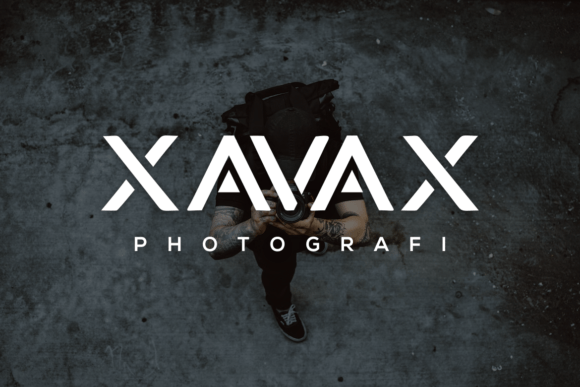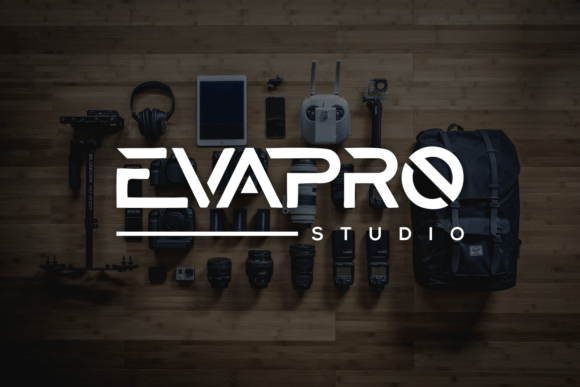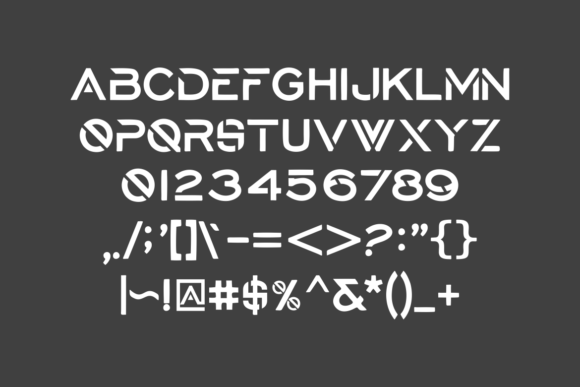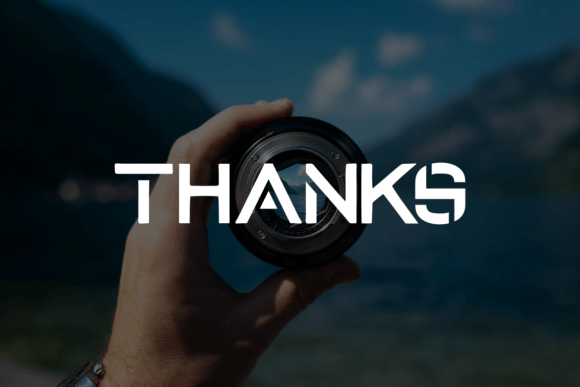
Introduction to Moprid Font
As designers, we’ve all been there – staring at a blank canvas, trying to come up with the perfect idea for a project. The cursor blinks, our minds go blank, and we’re left wondering what to do next. But what if you had the perfect design resource to kickstart your creative project? Enter the Moprid Font, a modern sans serif font that’s as versatile as it is stylish.
With its clean lines and simple shapes, the Moprid Font is the perfect solution for designers looking to add a touch of sophistication to their work. Whether you’re working on a high-quality brochure, a website, or a social media campaign, this font is sure to impress. And the best part? It’s available for free download, complete with a transparent background, making it easy to incorporate into your design.
Key Features of Moprid Font
- High-quality design with a transparent background, perfect for use in creative projects.
- Features a unique, modern design that can add a touch of sophistication to any creative project.
- Includes a range of glyphs and characters, making it a versatile font for use in various design contexts.
- Has a high resolution of 300 DPI, ensuring that it looks crisp and clear in print and digital applications.
- Is available in a range of sizes, from 18 to 72 points, allowing for flexibility in design and layout.
Honest Review: Moprid Font
I recently had the opportunity to work with the Moprid Font in a creative project, and I must say, I was quite impressed. The font offers a high quality, modern design that is perfect for a variety of applications.
One of the standout features of the Moprid Font is its versatility. It comes in a range of weights and styles, making it easy to find the perfect fit for your design needs. ✨ The font also includes a transparent background, which is a huge plus for designers who want to achieve a seamless look.
Here are some of the key features of the Moprid Font:
- High quality, modern design
- Range of weights and styles
However, there are a few limitations to the Moprid Font. ⚠️ The font may not be suitable for very small text sizes, and it may not be as customizable as some other fonts on the market. Additionally, the font is only available for personal use, which may be a limitation for commercial designers.
Overall, I was very impressed with the Moprid Font. It’s a great addition to any designer’s toolkit, and it’s perfect for a variety of creative projects. With its high quality design and transparent background, it’s a must-have for any designer looking for a reliable and versatile font.
Tips for Getting the Most Out of Moprid Font
To get the most out of Moprid Font, experiment with different font sizes, colors, and styles to create visually appealing designs. Use the transparent background feature to create unique and creative designs. Also, combine Moprid Font with other high-quality design resources to take your creative project to the next level.
Moprid Font is suitable for various creative projects, including graphic design, digital art, and web design. You can use the font to create headings, titles, and body text for your designs. The transparent background feature makes it ideal for creating visually appealing designs with complex backgrounds.